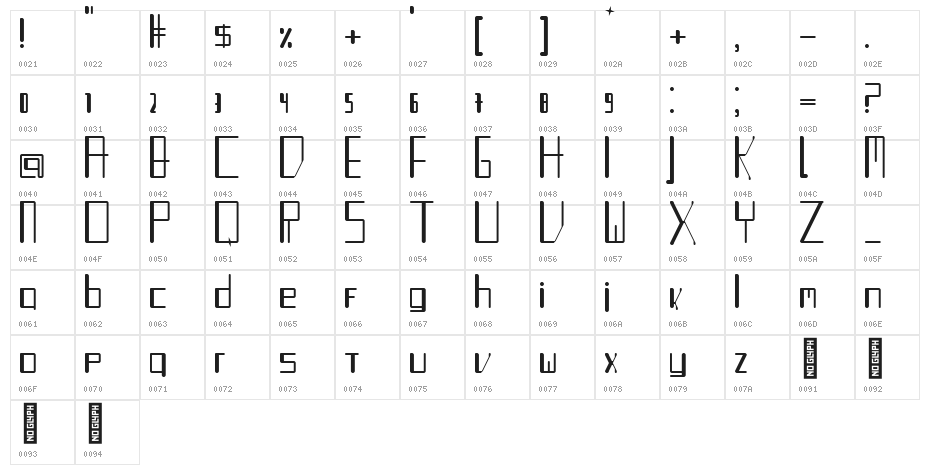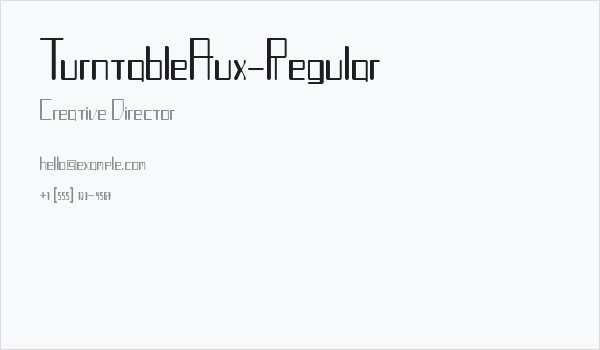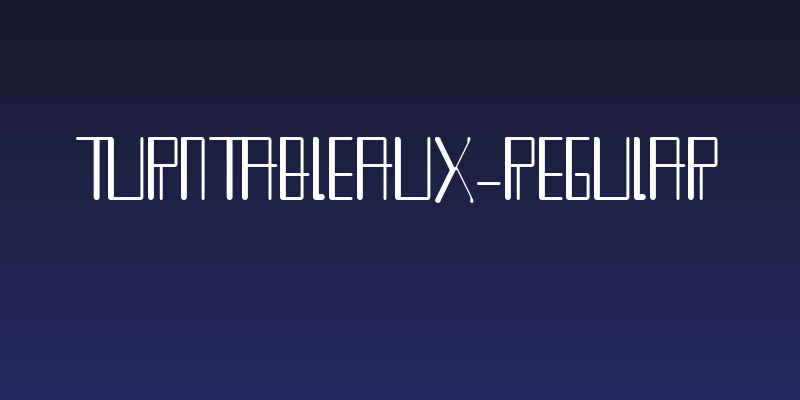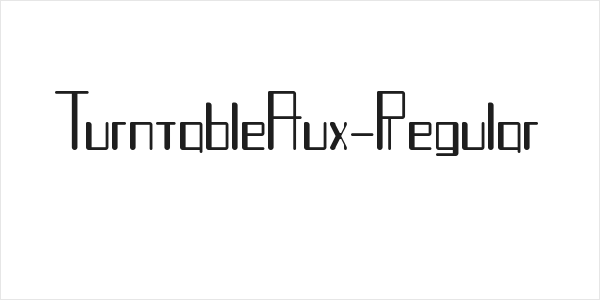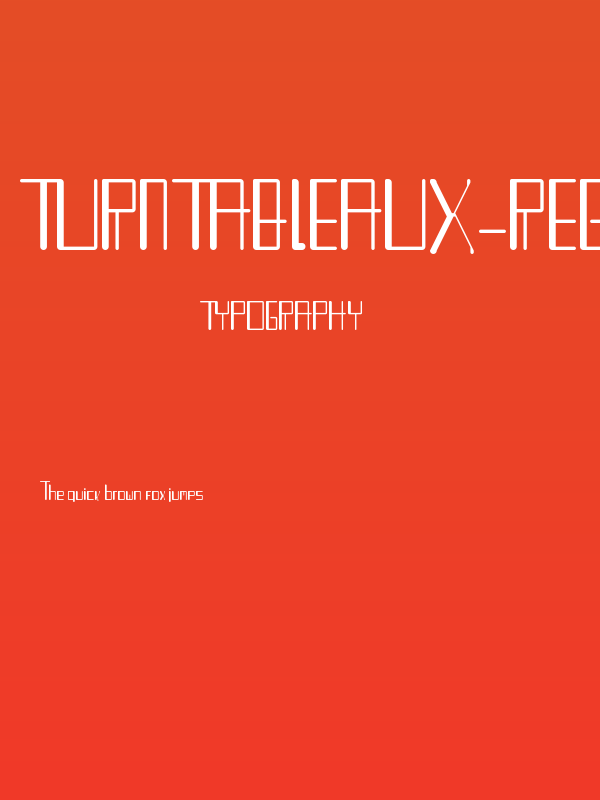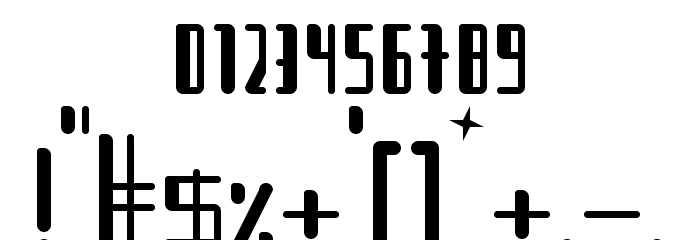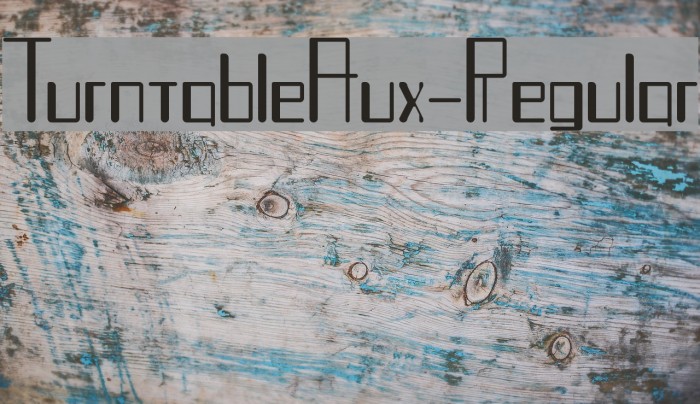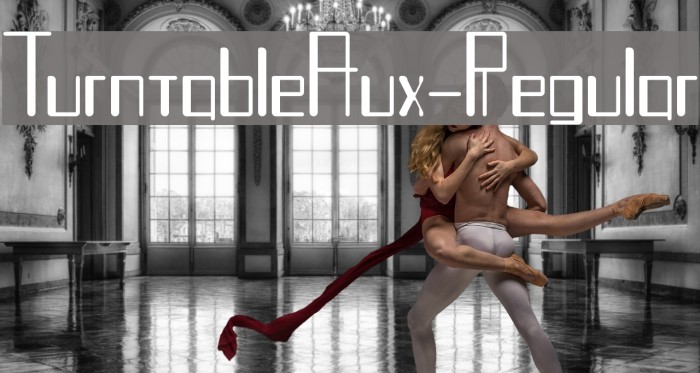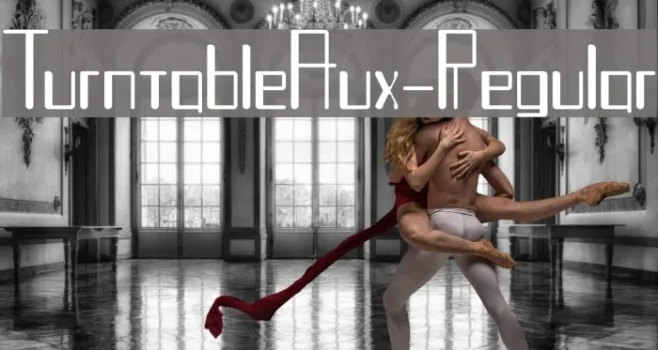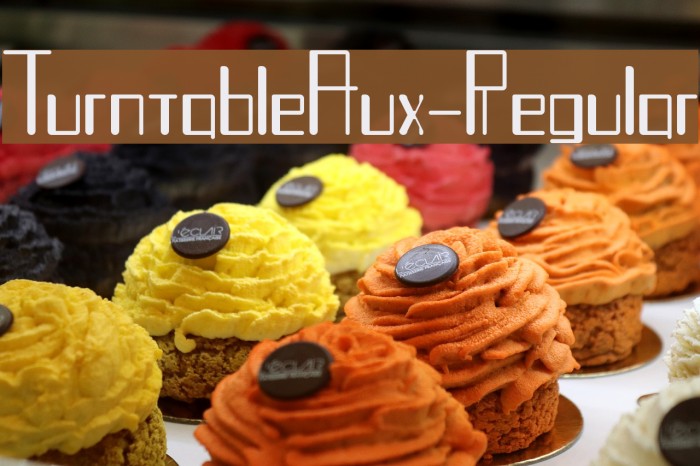
TurntableAux-Regular Font
This font features a unique, modern design with a geometric and futuristic aesthetic. The uppercase letters are tall and narrow, with a consistent stroke width that gives a clean and structured appearance. The lowercase letters maintain the geometric style, offering a harmonious blend with the uppercase set. Numbers are clear and legible, designed to match the overall aesthetic. Special characters are creatively styled, adding a distinctive touch to the font. The overall look is sleek and contemporary, making it ideal for projects that require a modern and innovative feel.
| Overall Style | Futuristic, Geometric |
| Use Case | Headlines, Logos, Digital Interfaces |
| Proposed Projects | Ideal for technology branding, modern posters, innovative product packaging, and digital interfaces. |